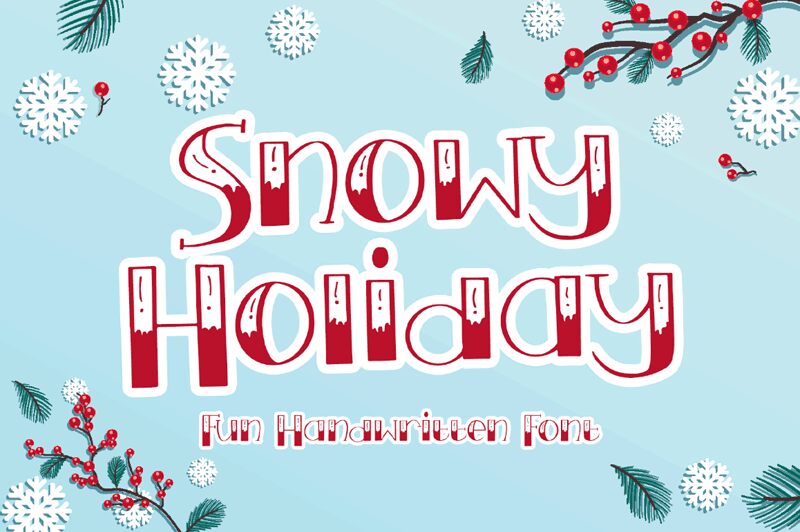
Snowy Holiday font, a whimsical creation by Phantom Studio, captures the playful magic of winter. This font beautifully combines decorative and festive elements, making it ideal for projects that require a casual yet artistic touch. With its cheerful and inviting design, Snowy Holiday adds a unique, winter-themed charm to any text.
Perfect for holiday cards, event invitations, social media graphics, posters, and merchandise, this font brings a friendly vibe to various creative projects. Use it for festive packaging, seasonal branding, blog headers, banners, scrapbook pages, or any other personal design endeavor.